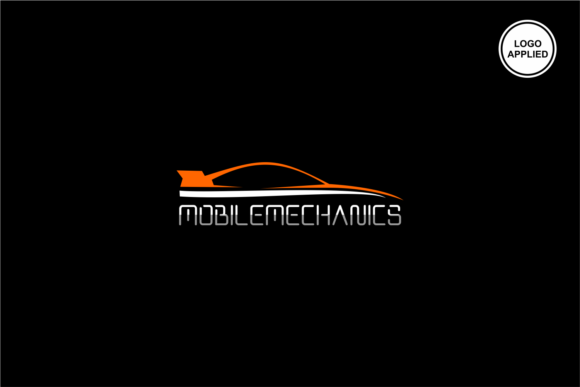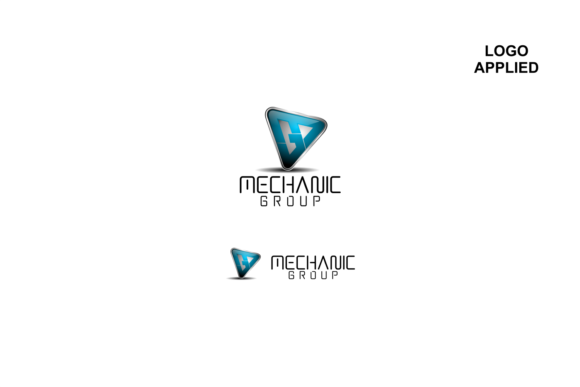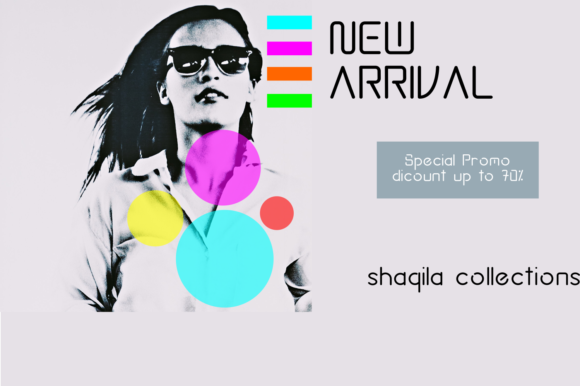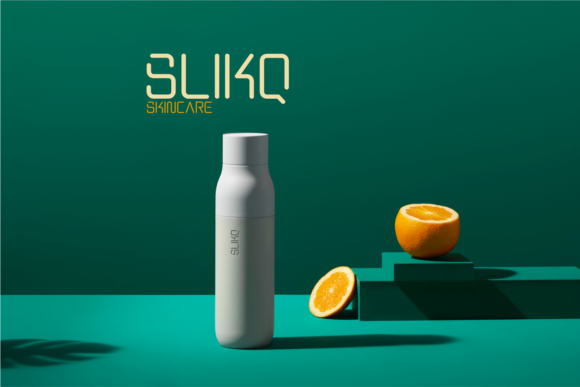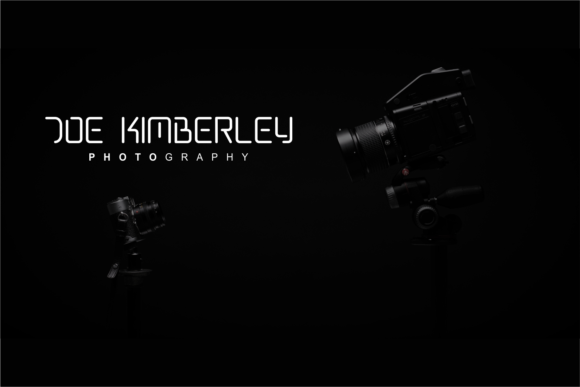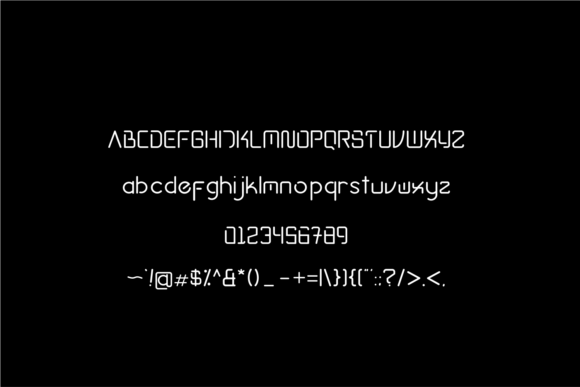
Introduction to Novetech Font
Remember that moment when you stumbled upon a design element that perfectly captured the essence of your creative project? For many designers, that moment is what drives their passion for innovative design resources. The Novetech Font is one such resource that has the power to elevate your designs and make them truly stand out.
This modern display font is a celebration of abstract shapes, embracing their eclectic beauty in a unique and captivating way. With its versatility, the Novetech Font can be used in a wide range of contexts, from digital designs to print materials, and everything in between. Whether you’re working on a high-quality design project or need a free download to add some flair to your designs, the Novetech Font is an excellent choice.
As a valuable design resource, the Novetech Font offers a transparent background, allowing you to easily customize and integrate it into your creative projects. Its high quality and unique aesthetic make it an excellent addition to any designer’s toolkit.
Key Features of Novetech Font
- Designed to be highly legible and versatile, making it suitable for use in a variety of contexts, from digital displays to print materials.
- Includes a range of weights and styles, allowing designers to add depth and visual interest to their creative projects.
Honest Review: Novetech Font
As a designer, I’m always on the lookout for high-quality design resources that can elevate my creative projects. The Novetech Font has been a game-changer for me, and I’m excited to share my honest review.
- ✨ High-quality font with a unique and modern aesthetic
- ✨ Supports a wide range of languages, making it perfect for international projects
- ⚠️ Limited font sizes and weights, which may not be ideal for complex projects
- ⚠️ No transparent background option, which can make it difficult to achieve a seamless design
Overall, I’m thoroughly impressed with the Novetech Font. While it may not be perfect, its high quality and unique aesthetic make it a valuable addition to any design resource library. Whether you’re working on a personal project or a commercial client, this font is definitely worth considering.
Getting the Most Out of Novetech Font
To get the most out of the Novetech Font, consider using it with a high-quality design resource. You can also experiment with different font sizes and styles to create a unique look for your creative project. Additionally, using a free download of the Novetech Font can save you time and money.
The Novetech Font is commonly used in graphic design, logo creation, and digital marketing. It is a versatile font that can be used in a variety of creative projects, from business cards to social media graphics. With its transparent background and high-quality design, the Novetech Font is a valuable addition to any design resource.